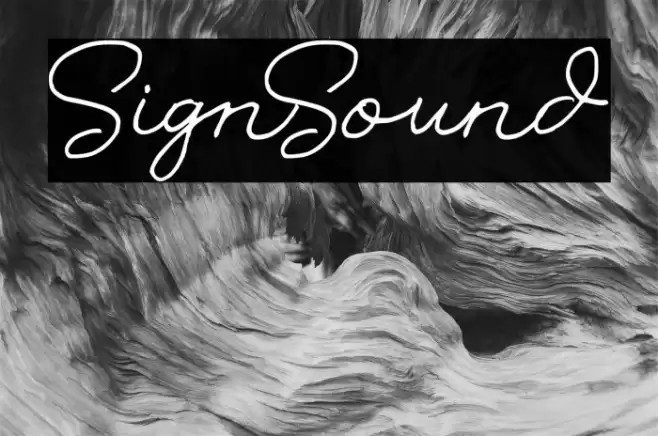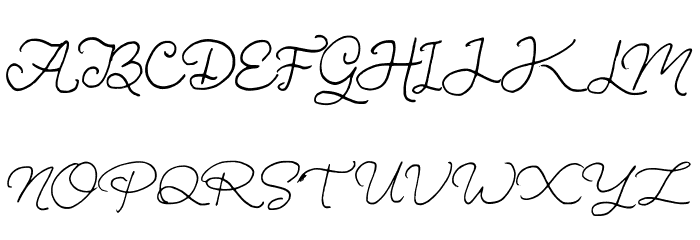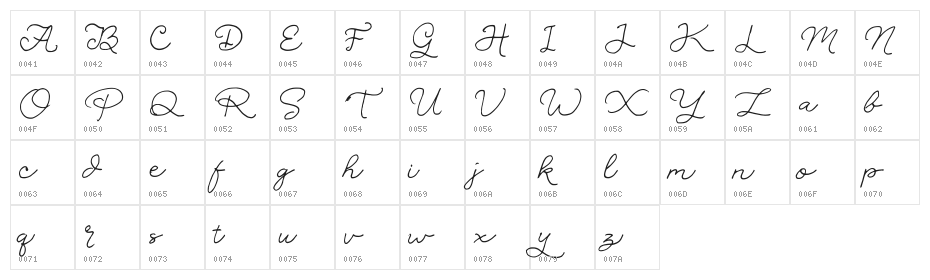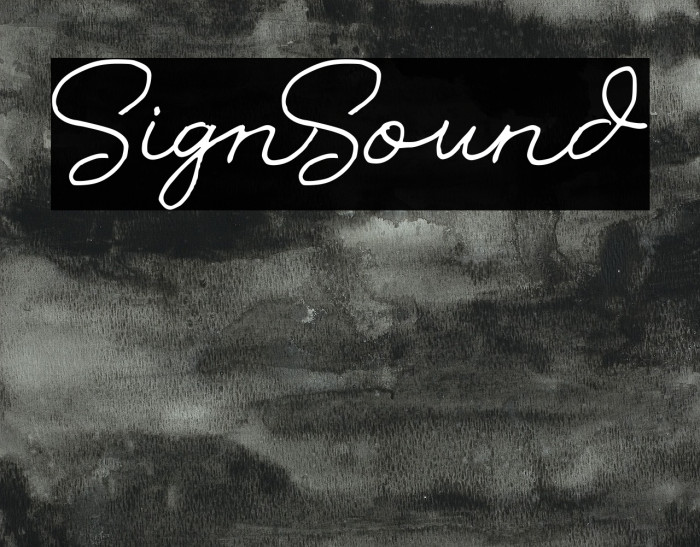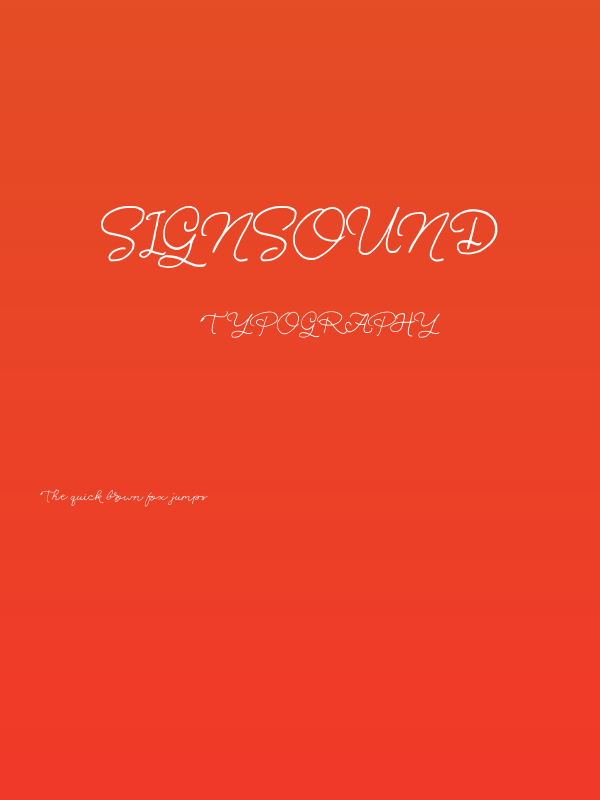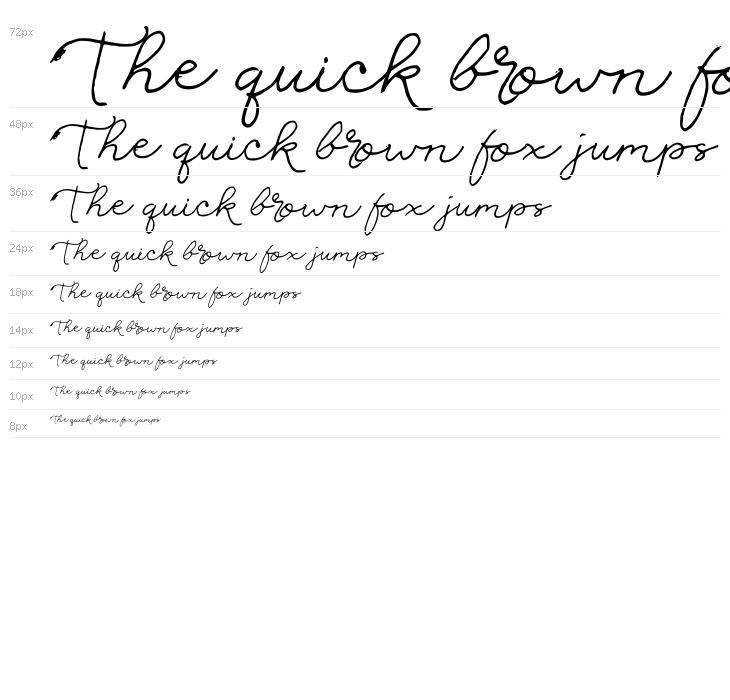
SignSound Font
SignSound Description
This font features an elegant and flowing script style, characterized by its smooth, cursive letterforms. The uppercase letters are slightly more ornate, with gentle curves and loops that add a touch of sophistication. The lowercase letters maintain a consistent flow, enhancing readability while preserving the decorative appeal. The font's overall appearance is reminiscent of traditional handwriting, making it suitable for projects that require a personal or artistic touch. The absence of special characters suggests a focus on alphabetic text, ideal for invitations, greeting cards, and other creative applications.
An elegant, flowing script font with a handwritten style from Uncategorized fonts.
- Proposed Projects: Ideal for wedding invitations, greeting cards, personal branding, and artistic projects.
- Overall Style: Classic
- Use Case: Headlines, Invitations, Artistic projects